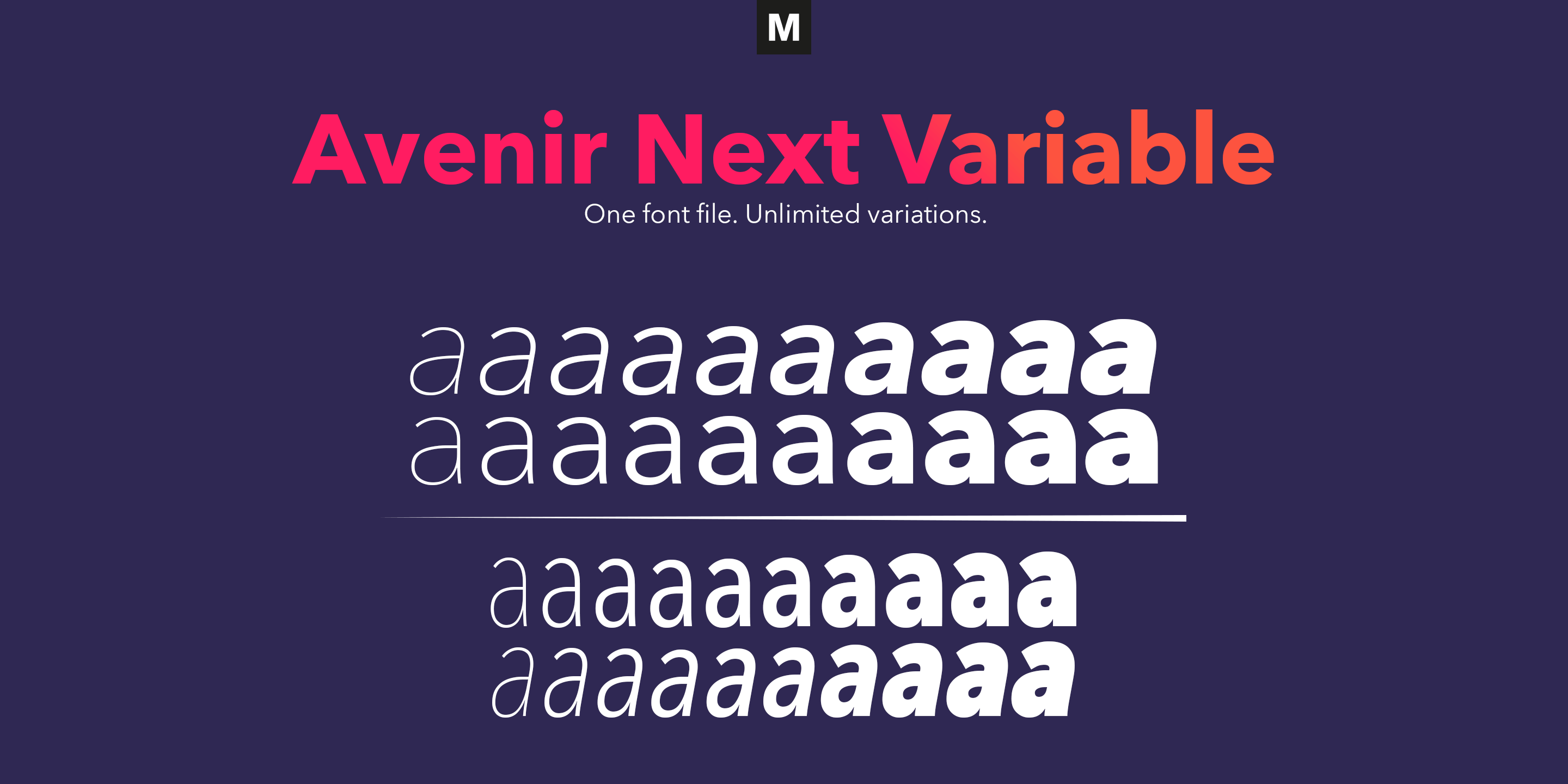
The Avenir Next Variable Font is an unparalleled choice for projects that demand a modern, highly versatile, and impeccably designed sans-serif aesthetic with exceptional clarity and a timeless quality. As a significant evolution of Adrian Frutiger's seminal Avenir, this variable version is perfectly suited for responsive web design, dynamic branding systems, interactive digital publications, complex corporate communications, public information displays, and virtually any application that requires a clean, professional, and infinitely adaptable typeface. Its systematic yet elegant character makes it ideal for conveying a sense of innovation, precision, and enduring sophistication.
What makes Avenir Next Variable Font so exciting is its cutting-edge technology that allows for seamless interpolation between different weights, widths, and potentially optical sizes from a single, highly efficient font file. This means designers are no longer limited to predefined styles; instead, they can select any intermediate value along design axes, creating incredibly precise and nuanced typographic expressions. Building upon the geometric purity and humanistic touches of the original Avenir, "Avenir Next" refined its readability for screen use, and the "Variable" format takes this flexibility to an unprecedented level. This font isn't just about displaying words; it empowers them with fluid adaptability, lending an air of understated luxury and sophisticated control to your content. It perfectly balances a classic modernist heritage with modern digital capabilities, ensuring outstanding readability and visual harmony across a vast range of applications and screen sizes. The ability to fine-tune its appearance on the fly is a game-changer for contemporary design.
The Avenir Next Variable Font family is typically defined by its "axes" of variation. For Avenir Next Variable, these axes commonly include Weight (ranging from UltraLight to Heavy/Black) and Width (condensed to extended), and sometimes Italic variations. This revolutionary format simplifies font management while offering an unprecedented degree of creative freedom. Instead of numerous separate font files for each weight and width combination, you get one file that intelligently contains the entire design space, allowing for smooth transitions and a truly custom typographic experience. This expansive control, combined with its full set of characters, including oldstyle and lining figures, ligatures, and extensive language support, makes the Avenir Next Variable Font Free Download an indispensable tool for innovative and responsive design.
Whether you're developing a cutting-edge responsive website, crafting a dynamic brand identity that needs to flex across diverse platforms, or creating visually stunning digital publications that demand precision and adaptability, the Avenir Next Variable Font Free Download offers an indispensable resource. Its unparalleled versatility, clarity, and robust functionality make it a premier choice for any project that requires a typeface of lasting quality, professional polish, and boundless creative potential.